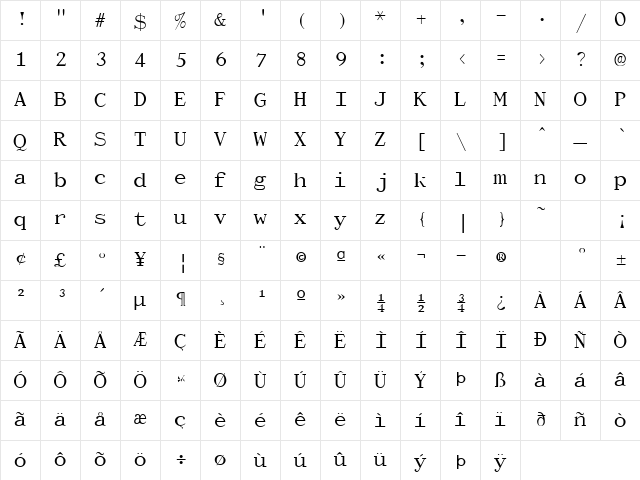
Complete Dactylographe Regular glyph index. Displaying only characters natively supported by Dactylographe Regular font.
Dactylographe is a composed and adaptable typeface that performs quietly and consistently across a wide range of design contexts.